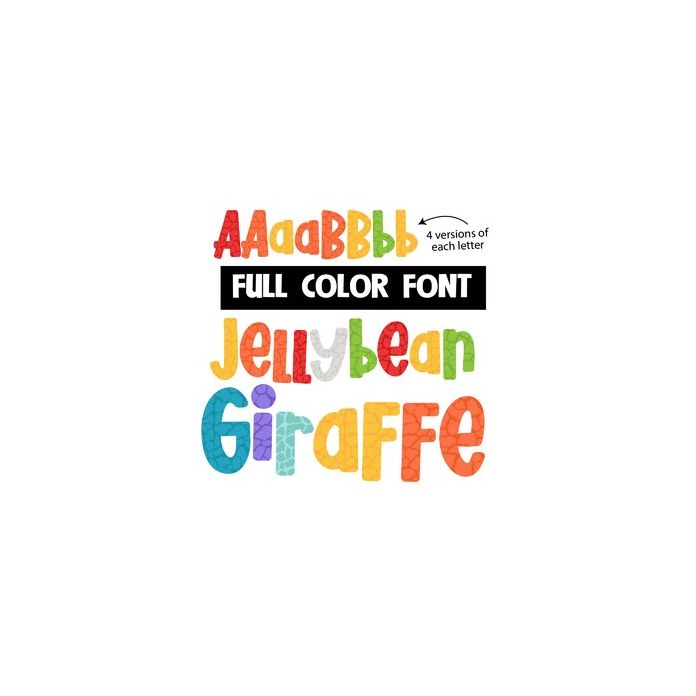
This full-color font features a giraffe print in a jellybean color palette. There is a second upper and lower alt case you can access through your system's character map. This font works best for titles, displays, posters and more. Please note color fonts will show as black in non compatible programs. This font type is compatible with Silhouette Studio.